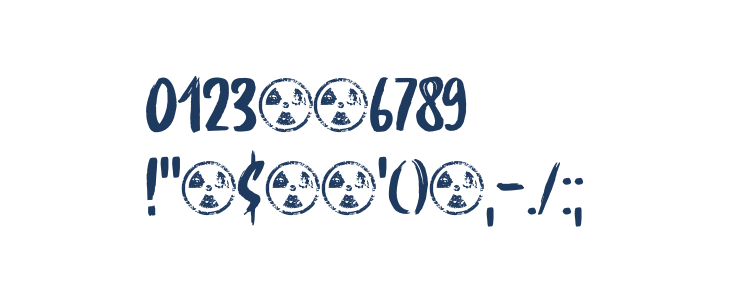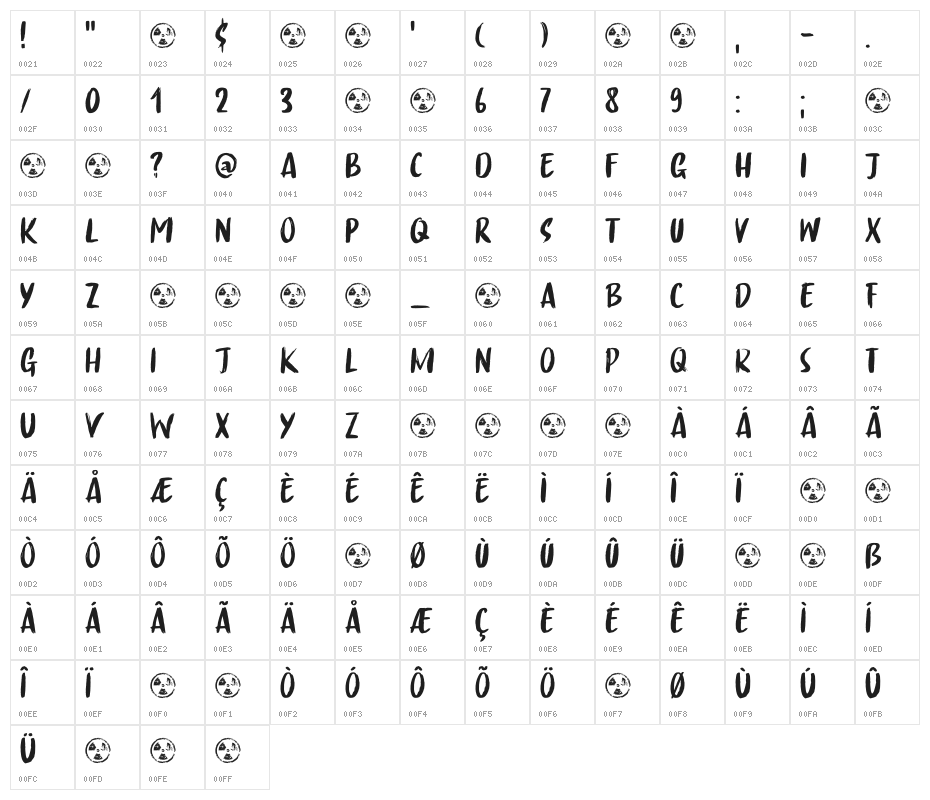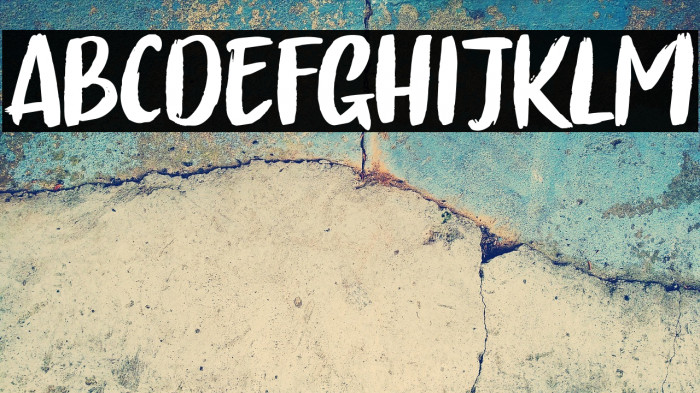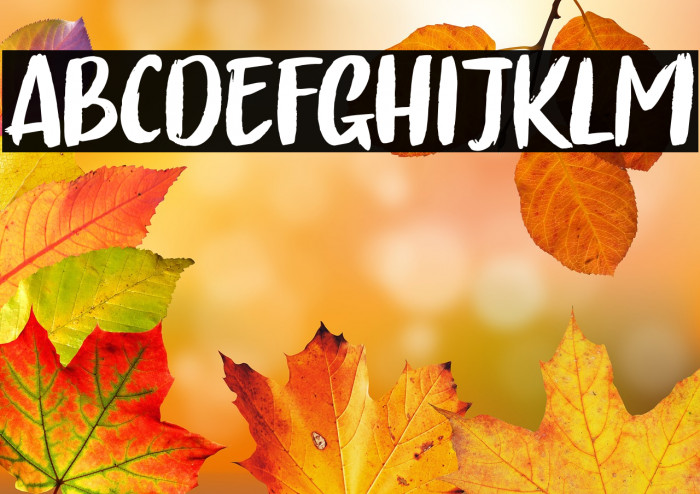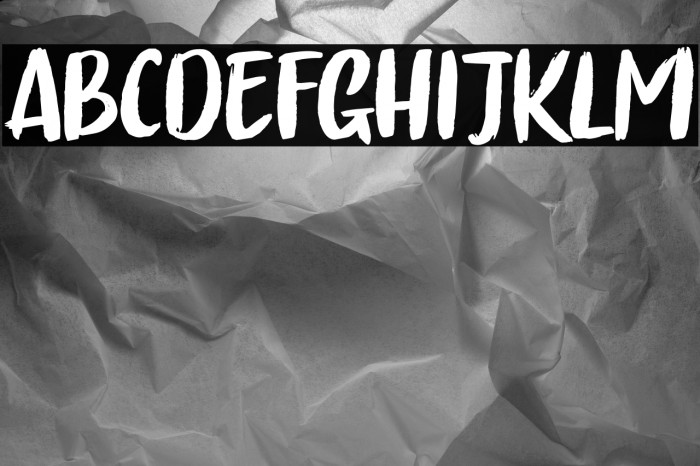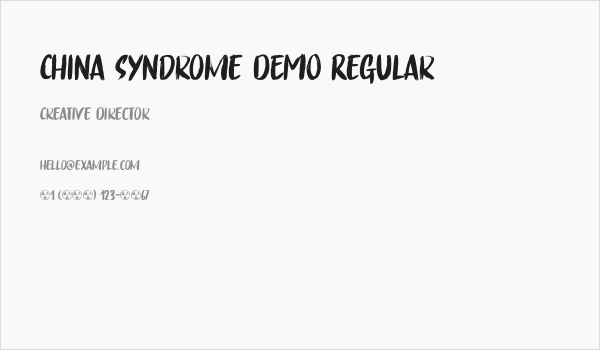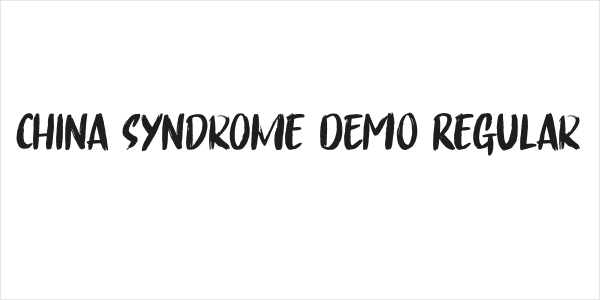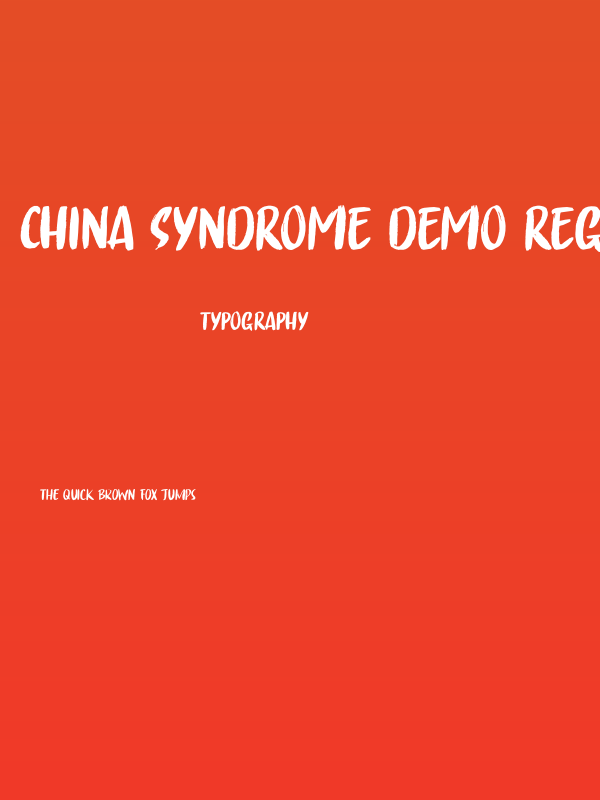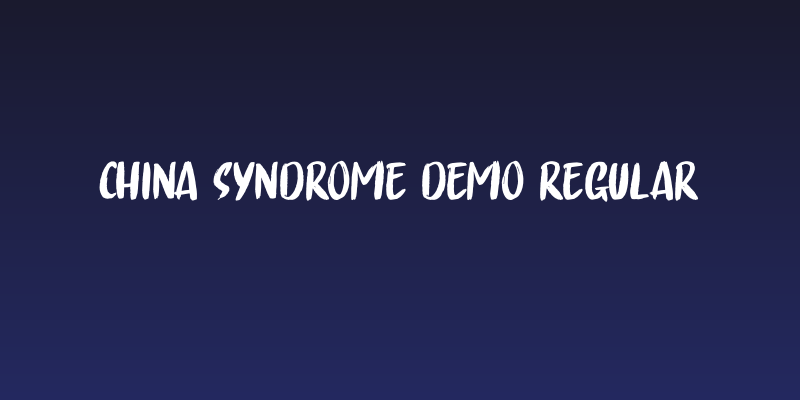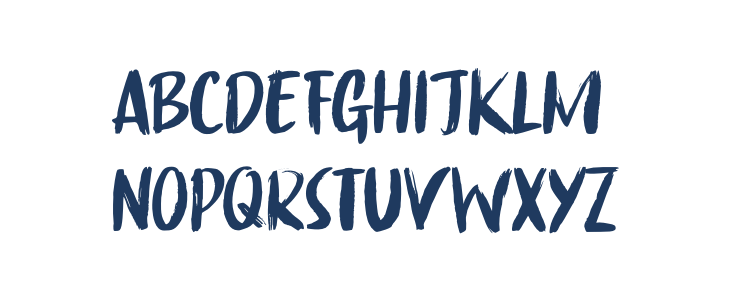
China Syndrome DEMO Regular Font
China Syndrome DEMO Regular Description
This font features a bold, brush-like style with a dynamic and energetic appearance. The strokes are uneven, giving it a hand-painted look that adds a sense of movement and spontaneity. The uppercase and lowercase letters maintain a consistent style, with slightly jagged edges that enhance its raw and artistic feel. Numbers and special characters follow the same aesthetic, making it suitable for creative and expressive projects. The font's unique character is emphasized by its high contrast in stroke thickness, which adds to its visual impact.
| Overall Style | Modern, Artistic |
| Proposed Projects | Ideal for posters, album covers, branding, and any project requiring a bold, artistic touch. |